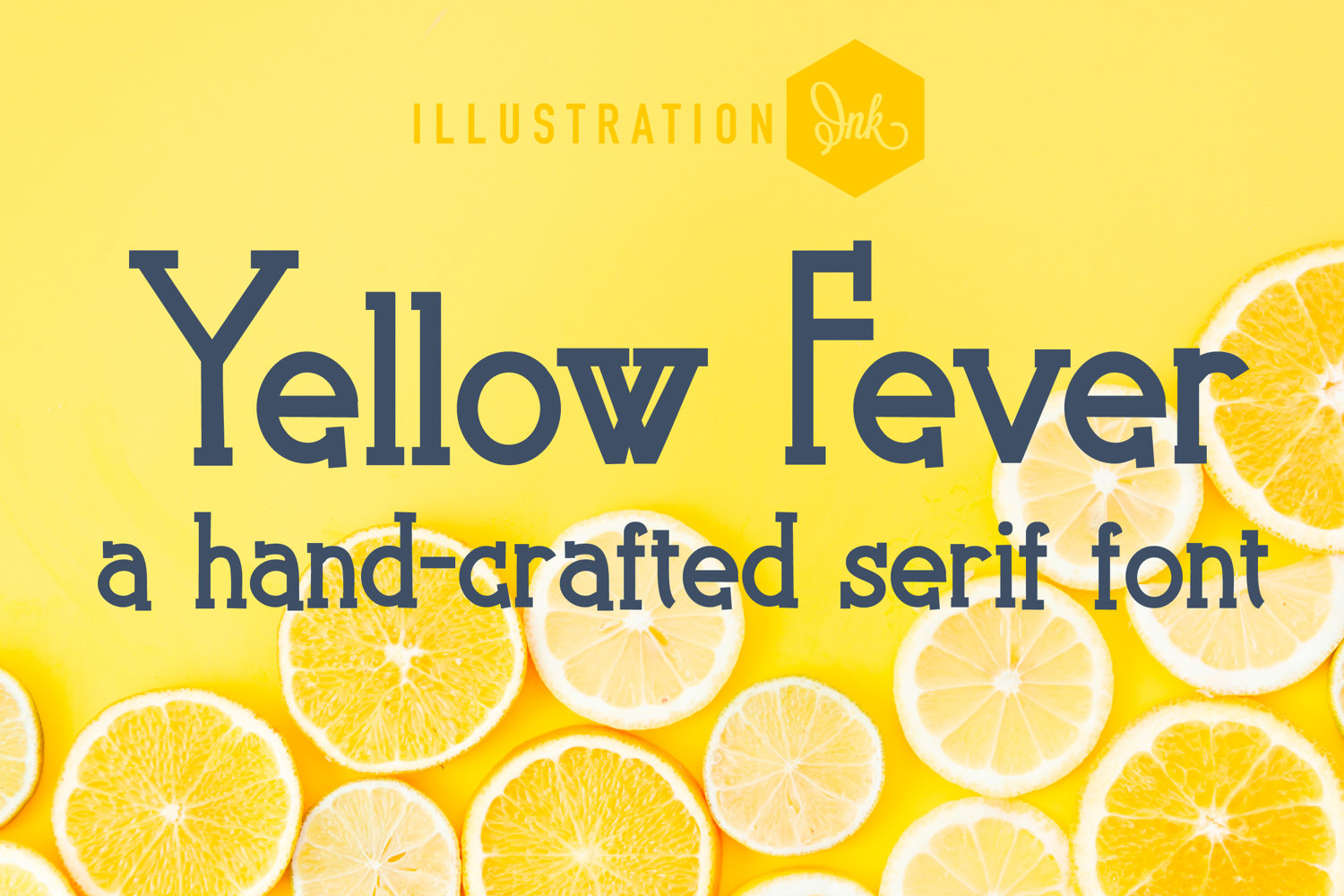
PN Yellow Fever
This hand-crafted font is a crafty serif with elongated lettering.
• The letters are not perfectly uniform in size or shape.
• There may be slight variations in the spacing between letters and words.
• The font may have a "wiggly" or "squiggly" appearance.
• The font may be difficult to read at small sizes.